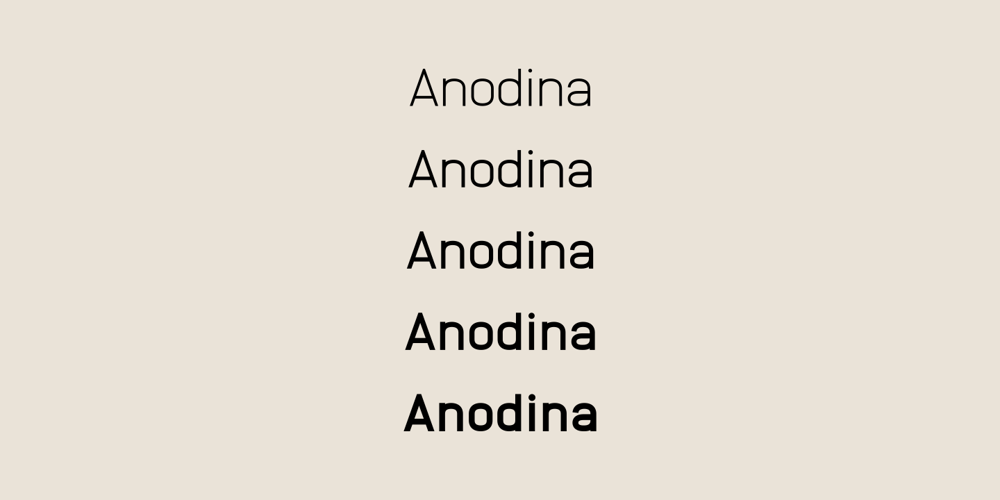
Anodina
Anodina font
Anodina Font Family was designed by Stefano Giliberti and published by Stefano Giliberti. Anodina contains 10 styles and family package options. Anodina is a font family with human features but symmetric in its soul. It supports 114 languages, features a total of 508 glyphs and includes an italicized version for each of the 5 weights.